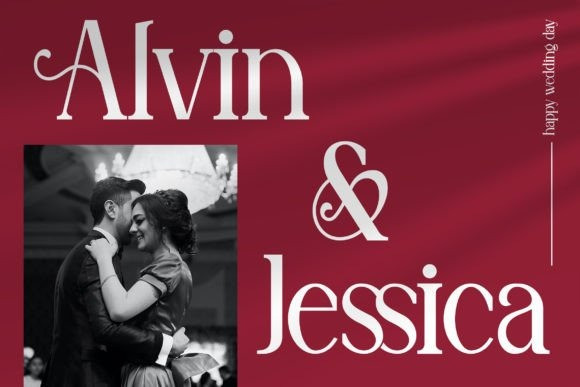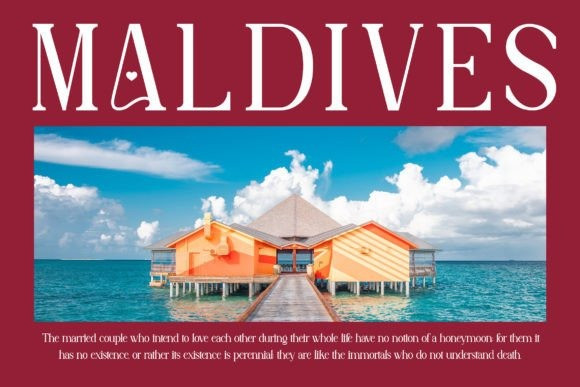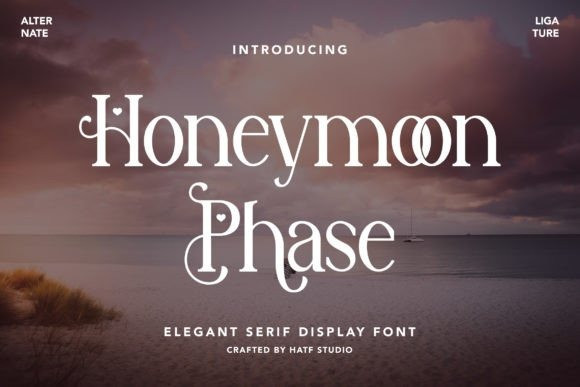
Honeymoon Phase Font
Honeymoon Phase Font is a modern and elegant serif font. Incredibly stylish and versatile, this typeface is suitable for a wide spectrum of applications. HoneymoonPhase is PUA encoded which means you can access all the glyphs and ligatures with ease!